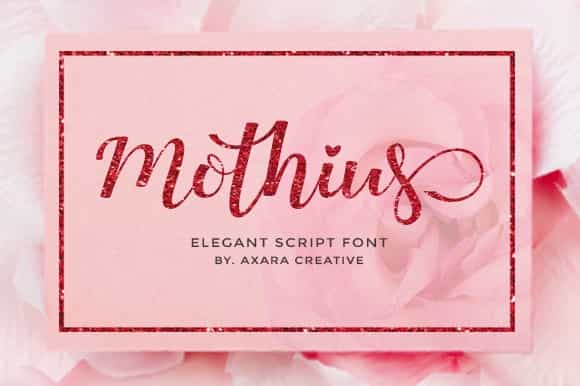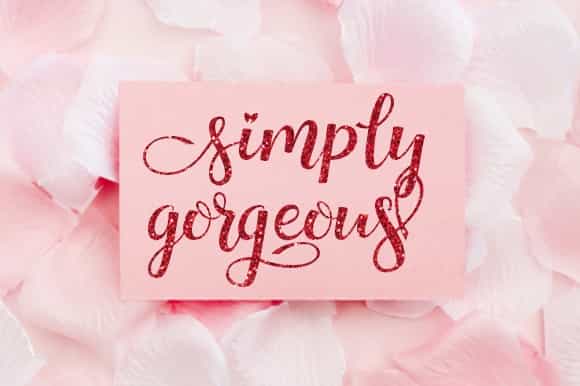
Mothius is a delicate and sweet font that is a script font style. It is perfect for creating beautiful artworks as the characters are fun rounded in shape. Mothius contains a lot of PUA encoded characters that will allow you to create a nice design within a few seconds.